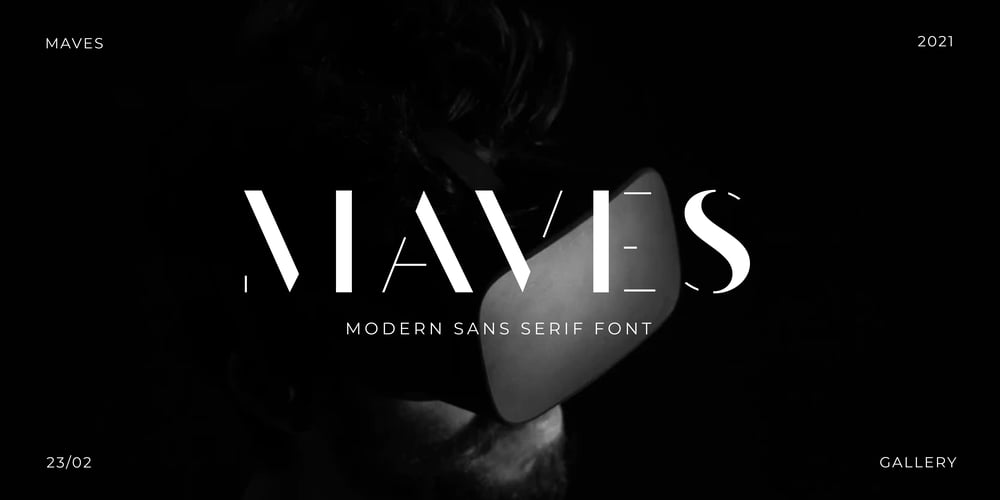
Maves Font Family was designed by Mohamad Ridwan and published by Prestigetype Studio. Maves contains 2 styles and family package options. Maves is a modern and elegant font designed with a unique futuristic touch. Perfect use for classy visual brand identities such as logos, headlines, titles, labels, websites, stationery, business cards, or any advertising purposes.Maves includes: Modern all caps fonts Numbers and punctuation Multilingual Opentype features We highly recommend using a program that supports OpenType features and Glyphs panels like many Adobe apps and Corel Draw so you can see and access all Glyph variations.We hope you enjoy our font – please do let us know by emailing us at info@prestigetype.com or prestigetypestudio@gmail.com if you need something!